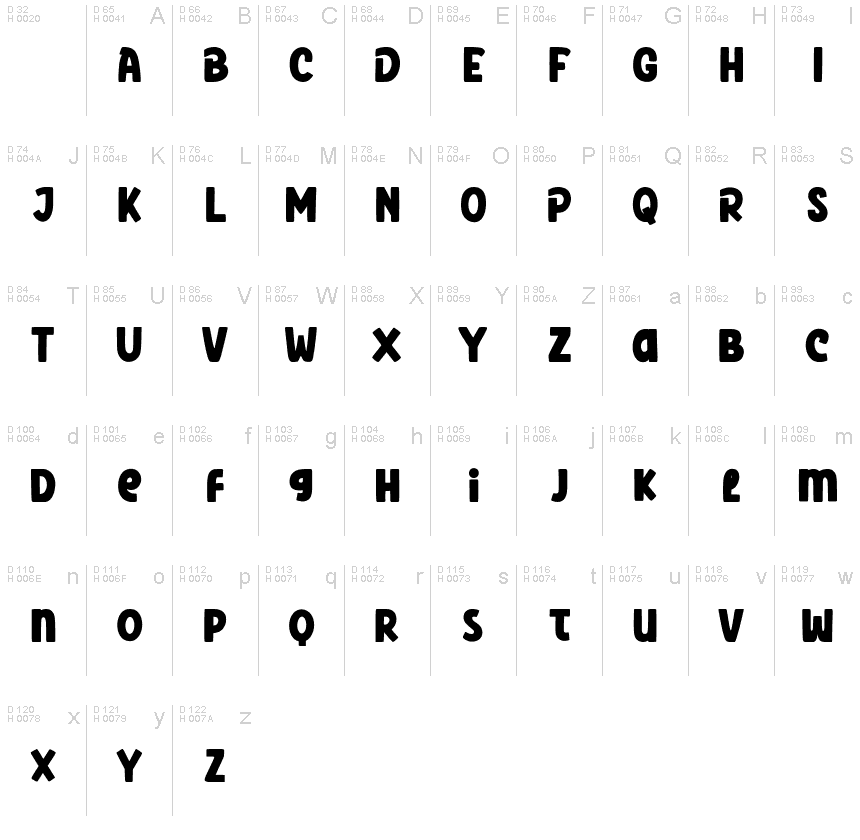
Northend Free Font Regular
Northend stands out as a playful yet bold handwritten display font meticulously designed by Maulana Creative. Its cartoon style, infused with a modern twist, boasts a lively set of characters complemented by subtle ligatures that add an extra layer of creativity to any project. The robust weight of Northend ensures that your message is not only seen but felt, making it a perfect choice for designers seeking to inject personality and warmth into their work.
From the vibrancy it brings to logos and social media content to the distinctive flair it adds to movie and book titles, Northend excels in offering versatility while maintaining its charming character. Its extensive multilingual support, accommodating over 100 languages, broadens its appeal across various cultures and markets. Whether paired with sans or serif fonts for contrast or used on its own for both short snippets or detailed passages of text, Northend promises to elevate your creative endeavors with its unique blend of whimsy and boldness.